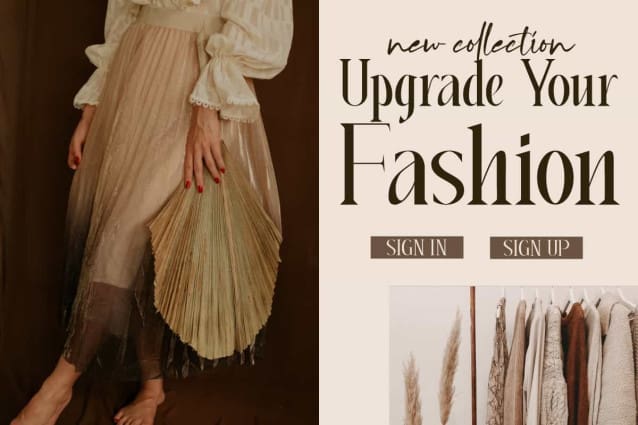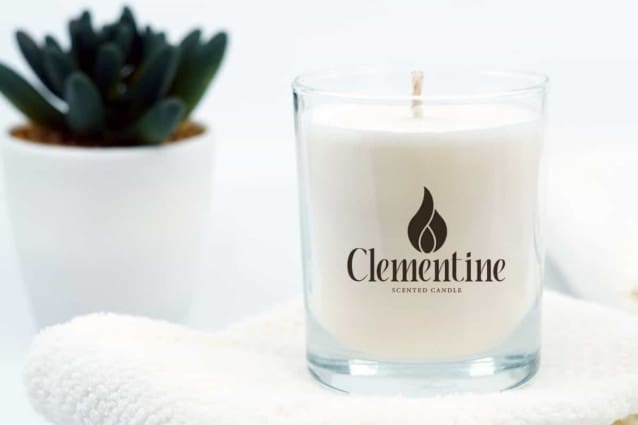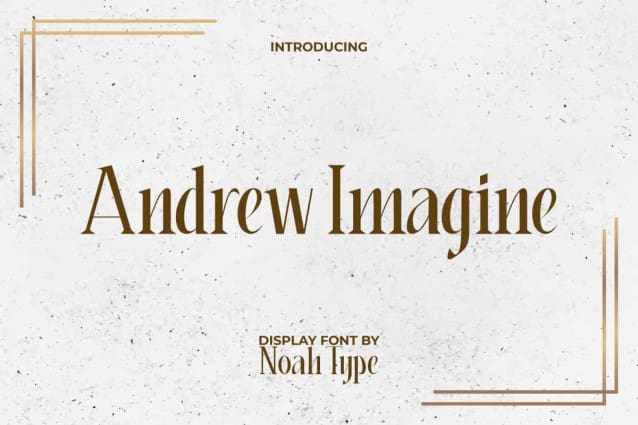
Andrew Imagine Font
Andrew Imagine Font is an elegant serif display font with stylish characters and sharp edges. This font has sophisticated look with stylish touch that will be timeless. It will be perfect for any designs, such as brand image, cover, custom design, invitation, label, marketing material, menu, poster, product packaging, quote, signage, stationery, web, and many more!
Andrew Imagine Font includes full set of Uppercase and Lowercase Basic Characters, Numerals and Punctuation. This font has classy and clean look which is perfect choice for many industries, such as advertising, art, beauty product, cafe, event or wedding organizer, fashion, jewelry and accessories, photography, printing, publishing, restaurant, etc.